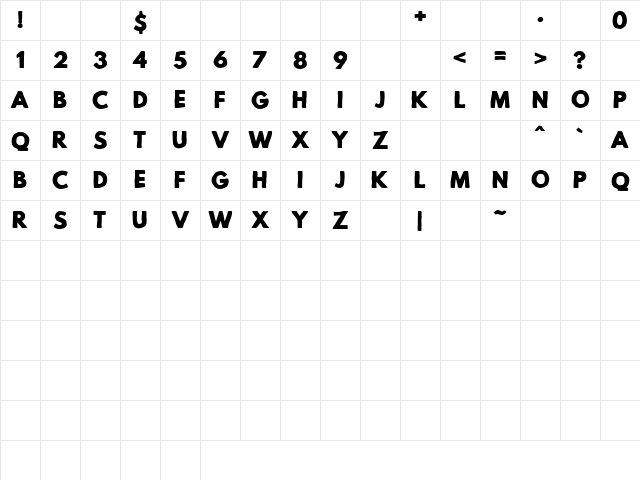
Mild Life Regular Personal Use Regular
Design Context for Mild Life Regular Personal Use
Mild Life Regular Personal Use is a composed and adaptable typeface that performs quietly and consistently across a wide range of design contexts.
Pro Tip: Use Mild Life Regular Personal Use in both headline and body roles to test its range before committing to a single application.